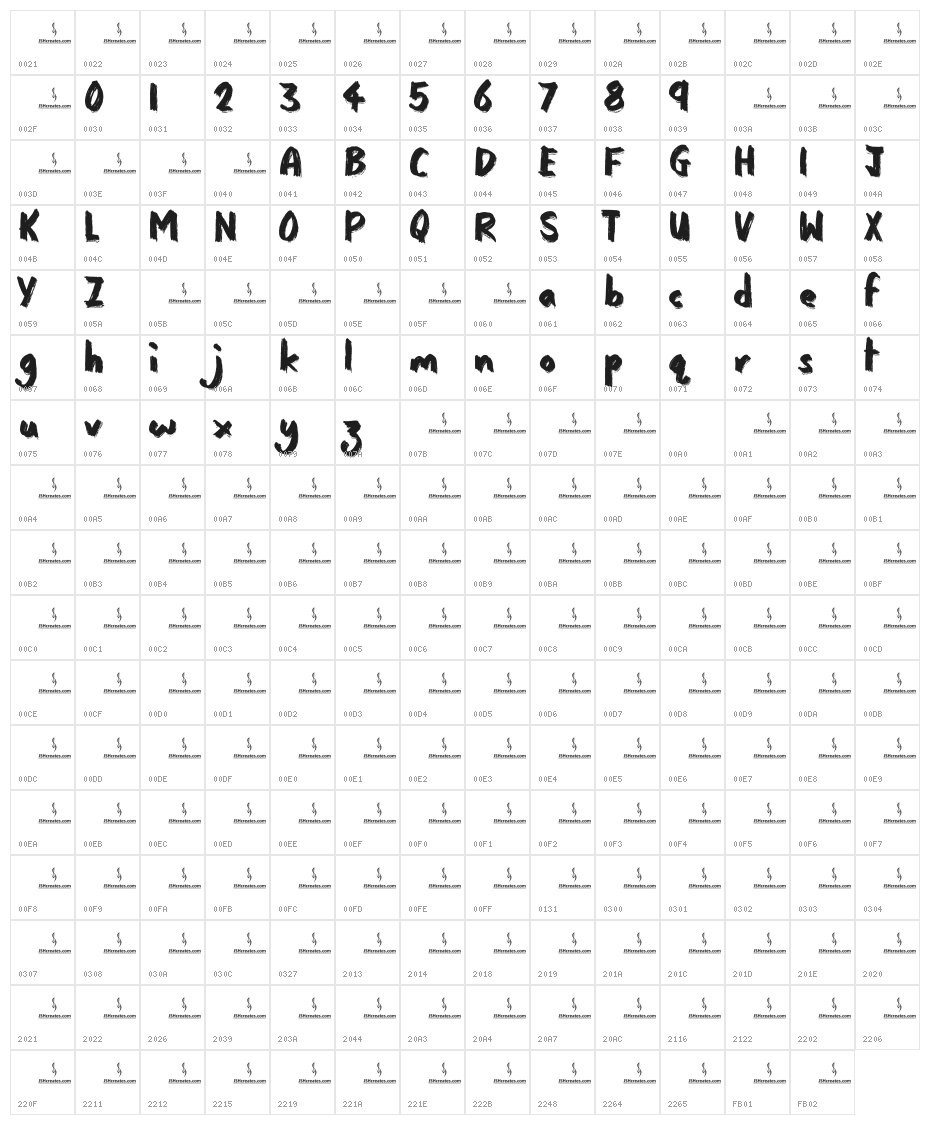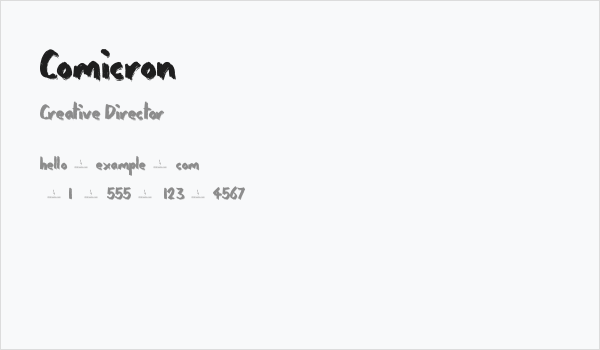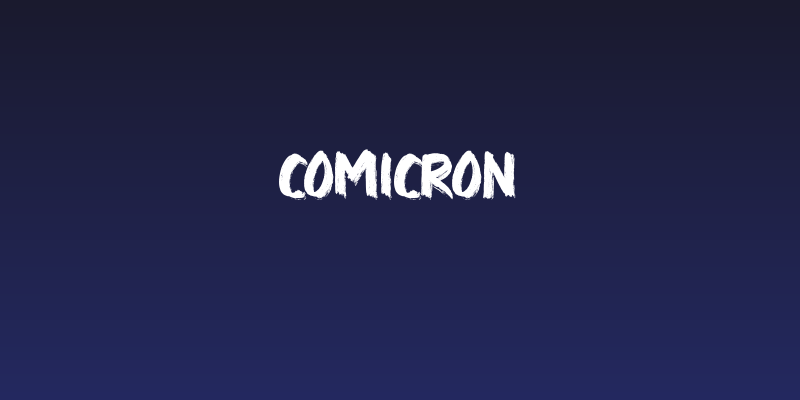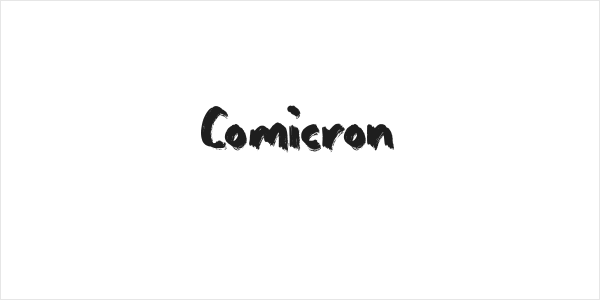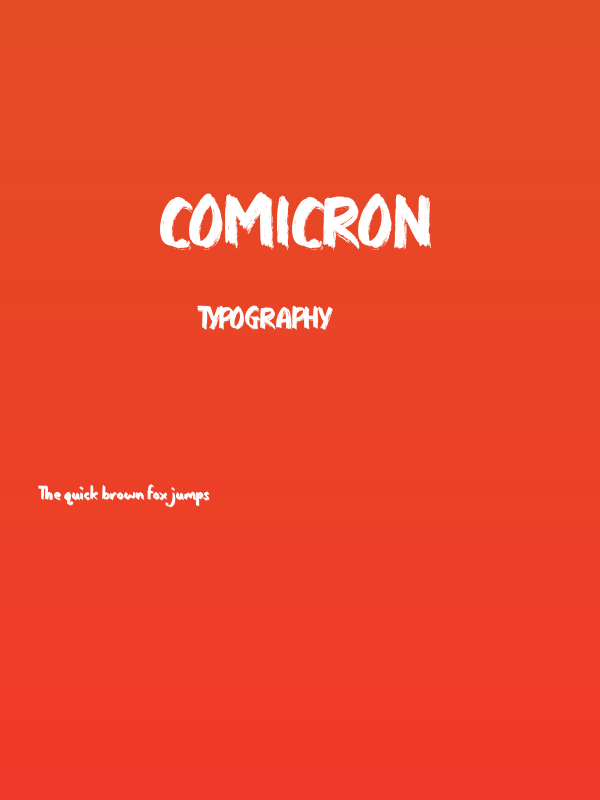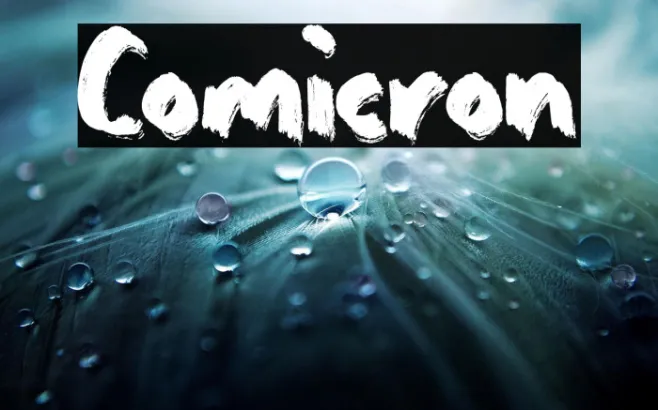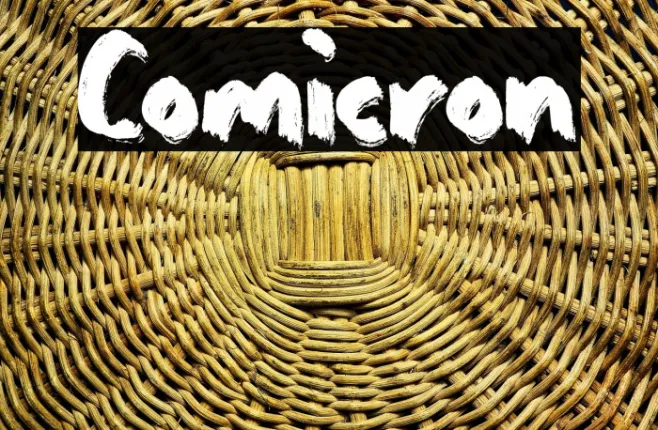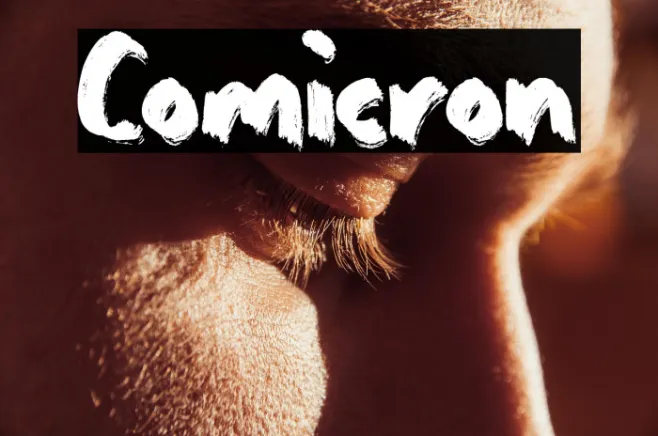
Comicron Font
Comicron Description
This font features a bold, expressive brushstroke style that conveys a sense of energy and dynamism. The characters are crafted with a rough, textured appearance, giving them a hand-painted look. The uppercase and lowercase letters maintain a consistent style, with varying stroke thickness that adds to the font's artistic flair. Numbers and special characters are equally bold and maintain the same textured aesthetic, making them stand out. This font is ideal for projects that require a strong, impactful visual presence.